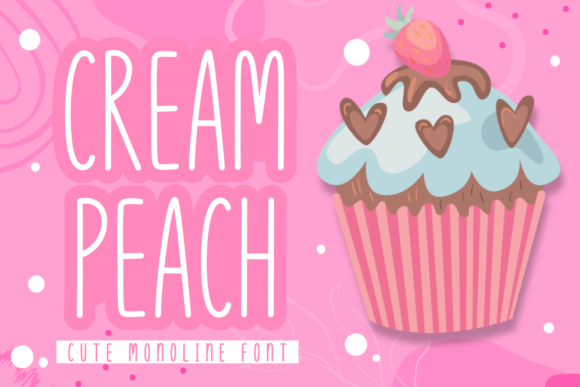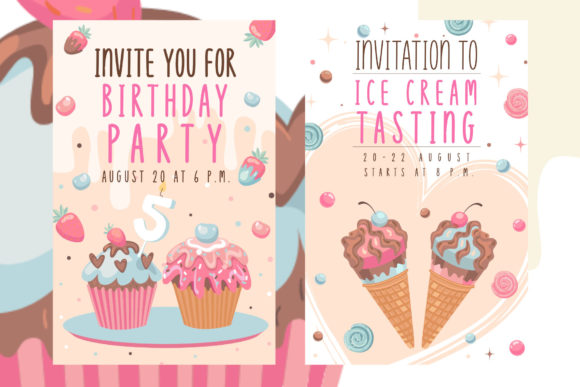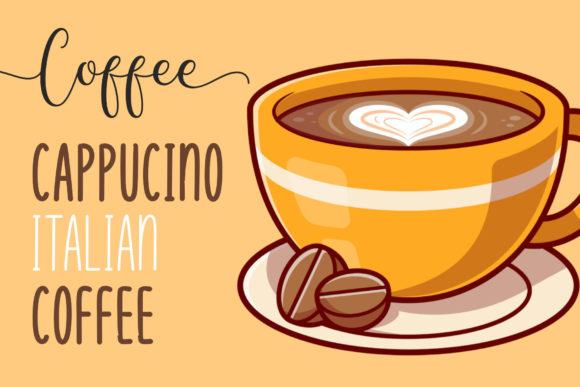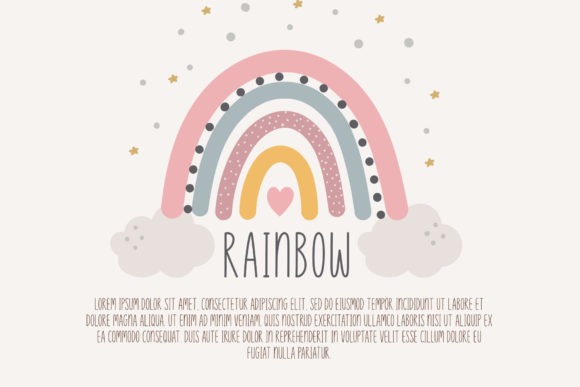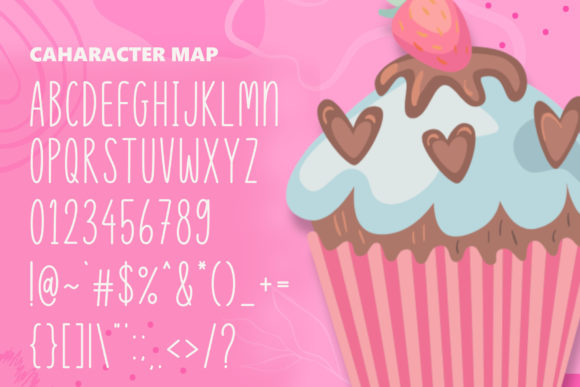
Cream Peach Font
About Cream Peach Font
Cream Peach is a cute handwritten font. Its sweet and full of life style makes this font a wonderful choice for brightening up your designs.